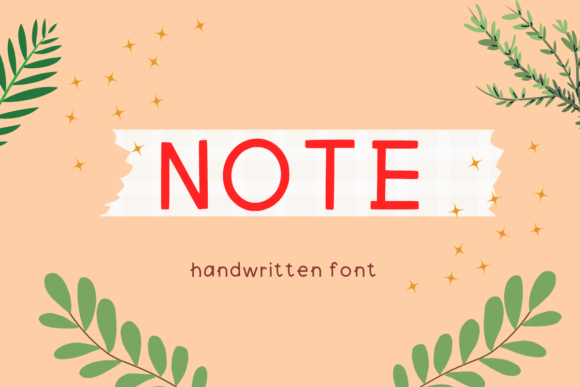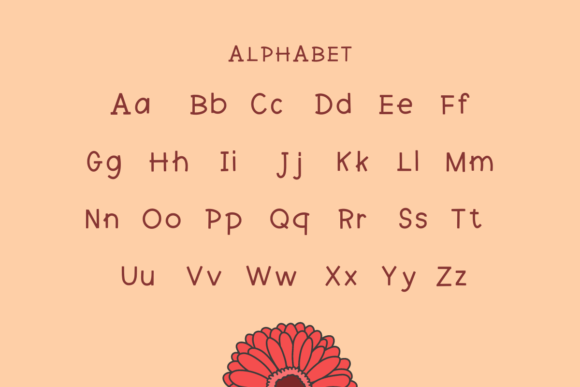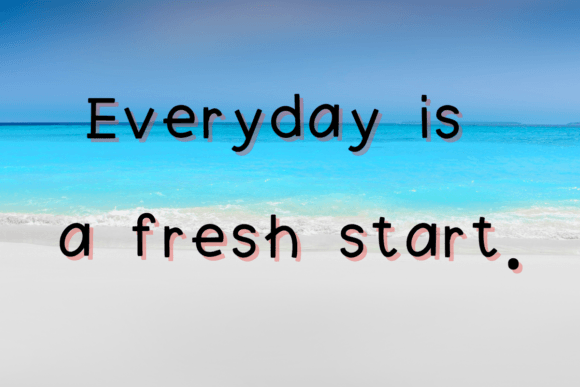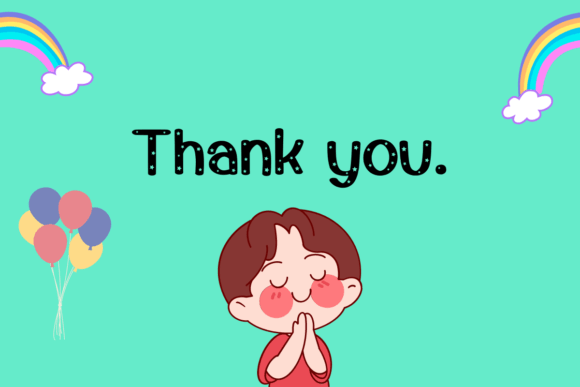
Note Font
Trendy Simple Handwriting for Fun and Friendly Designs
If you’re searching for a lighthearted and flexible typeface, the trendy simple handwriting of Note Font might be your new favorite. With its cute, casual charm and playful energy, this handwritten script adds warmth and approachability to any creative project. Whether you’re designing for digital or print, Note brings clarity, fun, and modern style in one clean package.
Its simplicity is what makes it so adaptable — you can use it just about anywhere!
Discover Note: Cute, Fun, and Versatile
Note Font is crafted to feel handwritten, but still neat enough for professional or commercial use. Its rounded shapes and soft curves help it stand out while remaining easy to read. This balance of style and simplicity makes Note ideal for designers, educators, and hobby crafters alike.
Here are just a few ways this trendy simple handwriting font can be used:
• Printable planners and journals
• T-shirt designs and mug graphics
• Logo design and brand identity
• Inspirational quote posters
• Instagram content and Pinterest pins
Because it looks natural and friendly, it fits well in both casual and professional settings.
Why Designers Love the Note Font
There’s a reason Note is quickly becoming a favorite among creatives. It offers:
• A soft and trendy handwritten appearance
• Excellent readability on screens and in print
This trendy simple handwriting font gives your projects a cheerful tone without being overly decorative or distracting.
Great for Teachers, Creators & Small Businesses
Because of its versatility, Note is perfect for content creators, teachers, and small shop owners. Whether you’re designing a classroom handout, a printable for Etsy, or a seasonal email banner — this font will adapt beautifully.
Popular use cases include:
• Digital notebooks and study templates
• Motivational cards and stickers
• Lifestyle branding and custom packaging
• Kid-friendly educational graphics
• Printable affirmations and home décor
The creative potential really is endless when you have a font that plays so well with everything.
Note is more than just a cute typeface — it’s a design tool that helps your content connect with warmth and personality. With its modern style and approachable feel, this trendy simple handwriting font is a must-have for anyone looking to make their projects stand out.